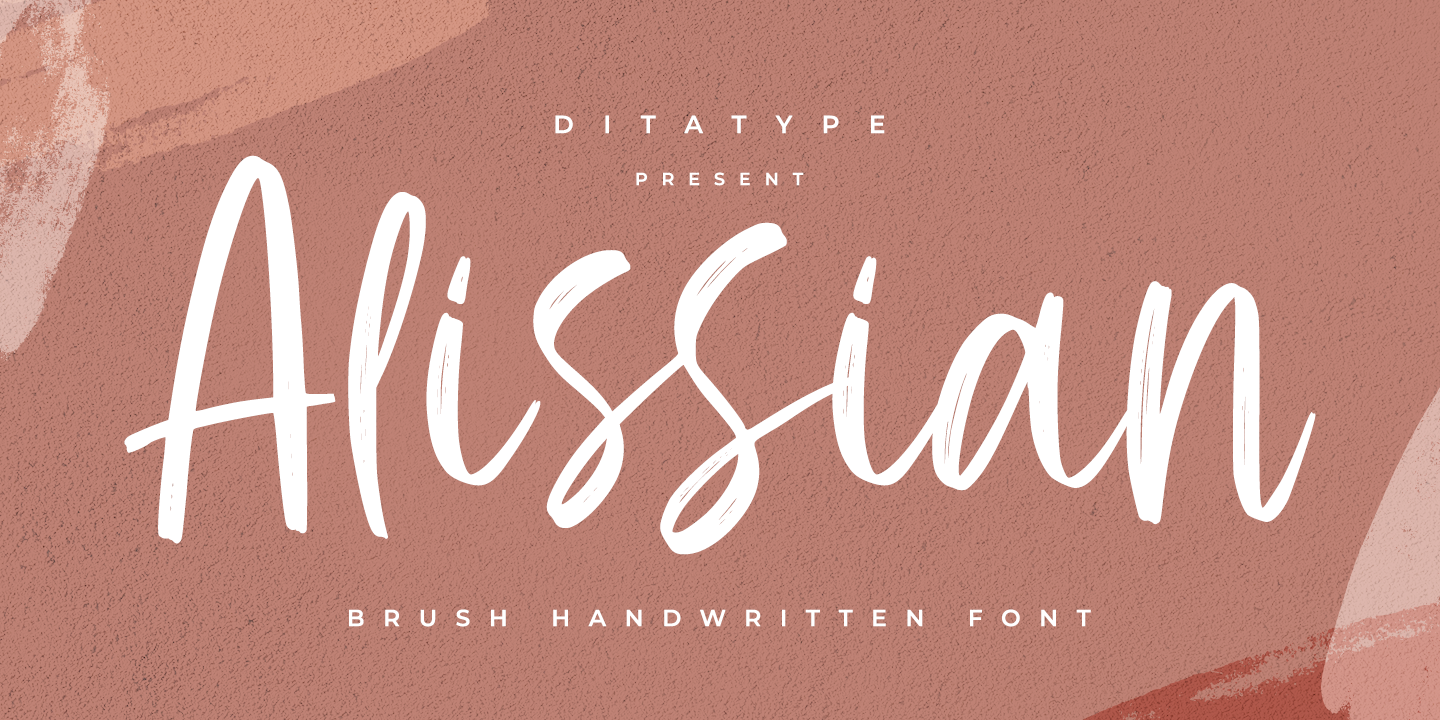
Alissian Font Free Download is an elegant, modern script typeface that blends sophistication with a romantic, handcrafted feel. Featuring graceful curves, stylish ligatures, and flowing letterforms, Alissian Font is perfect for wedding invitations, logos, branding, greeting cards, packaging, and social media graphics. Its refined yet approachable design makes it ideal for projects that aim to convey beauty, elegance, and personal charm.
Whether you're creating romantic stationery, luxury branding, or elegant marketing materials, Alissian Font provides a sophisticated, artistic touch that elevates your designs. Its balance of elegance and readability ensures it works seamlessly across both print and digital applications.